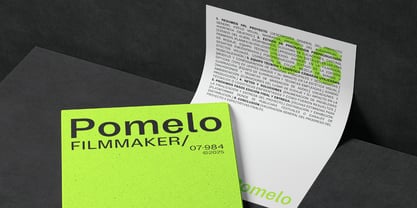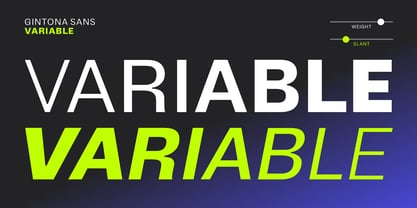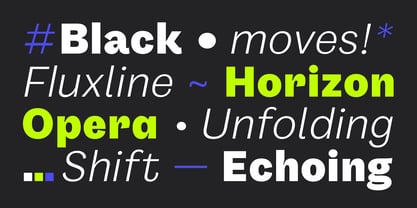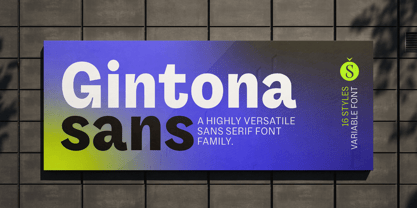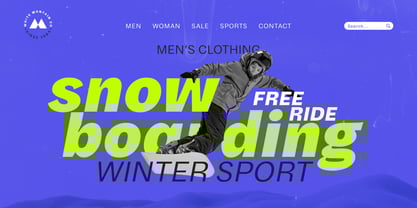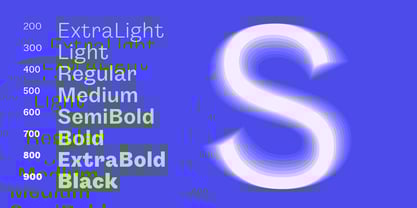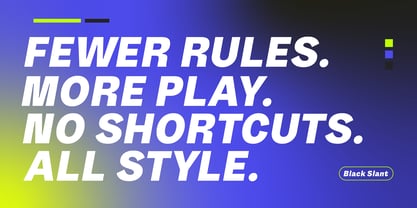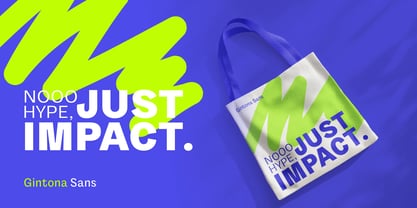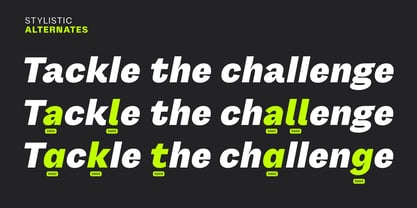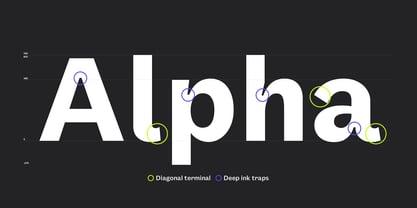
Gintona Sans
by Sudtipos
Gintona Sans is a modern and versatile sans serif that carries the distinctive spirit of the Gintona family. With 8 weights and a variable version, it adapts seamlessly to editorial projects, branding, and digital design.
Shedding the sturdy serifs of Gintona Slab, this sans version enhances fluidity while preserving a sense of energy and precision. Its balanced proportions and meticulously crafted forms create a fresh, dynamic feel, making it equally effective for immersive text settings, bold headlines, and striking graphic compositions.
Gintona Sans is the perfect choice for those seeking a contemporary typeface with character—adaptable across diverse applications without losing its unique identity.
Designers: Eduardo Dulin
Foundry: Sudtipos
Gintona Sans